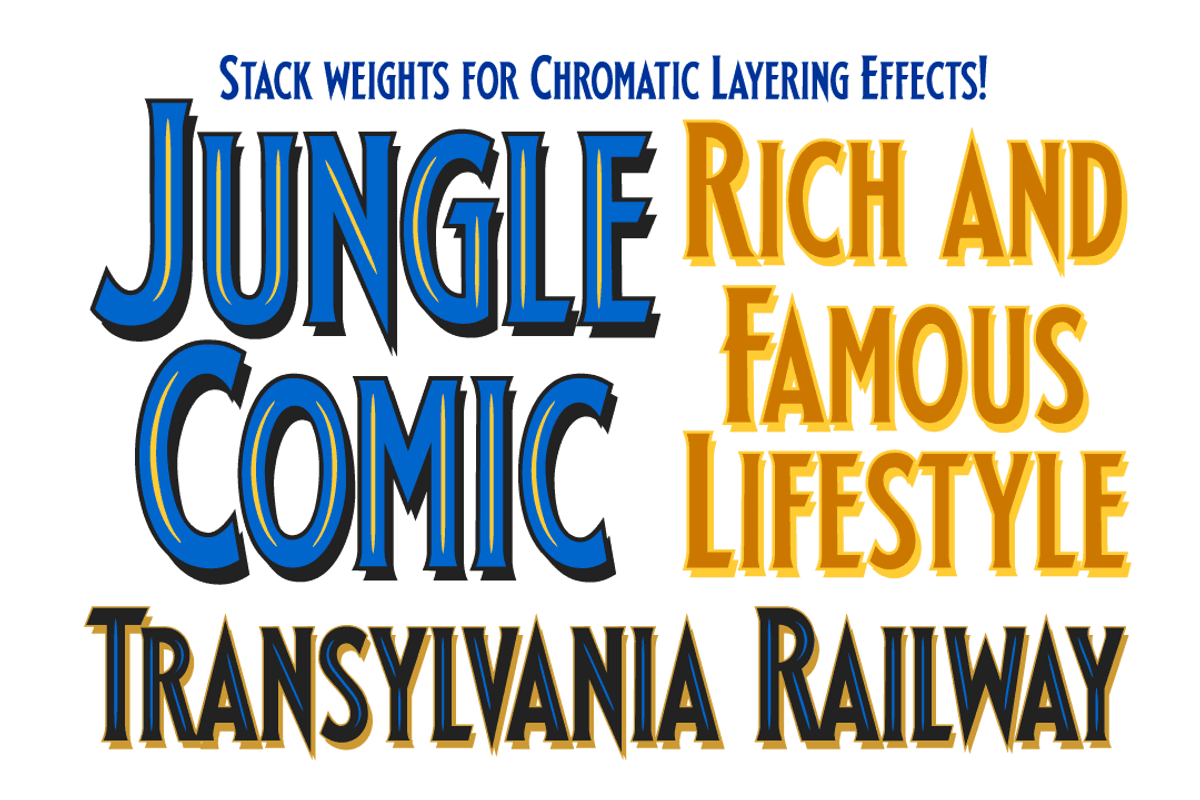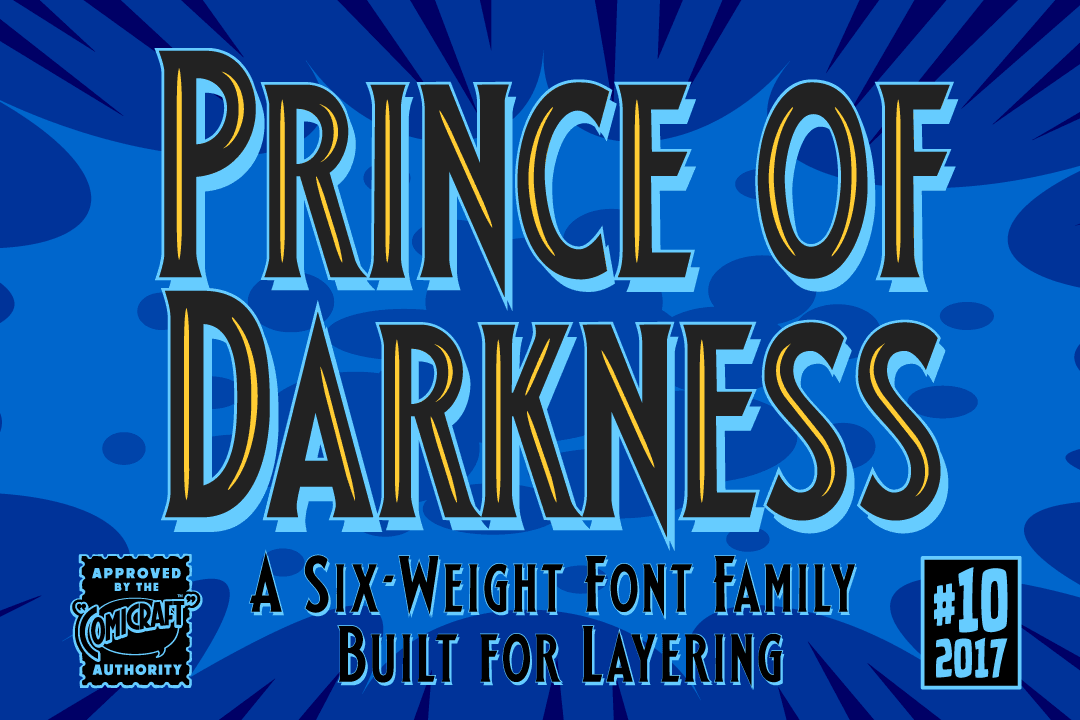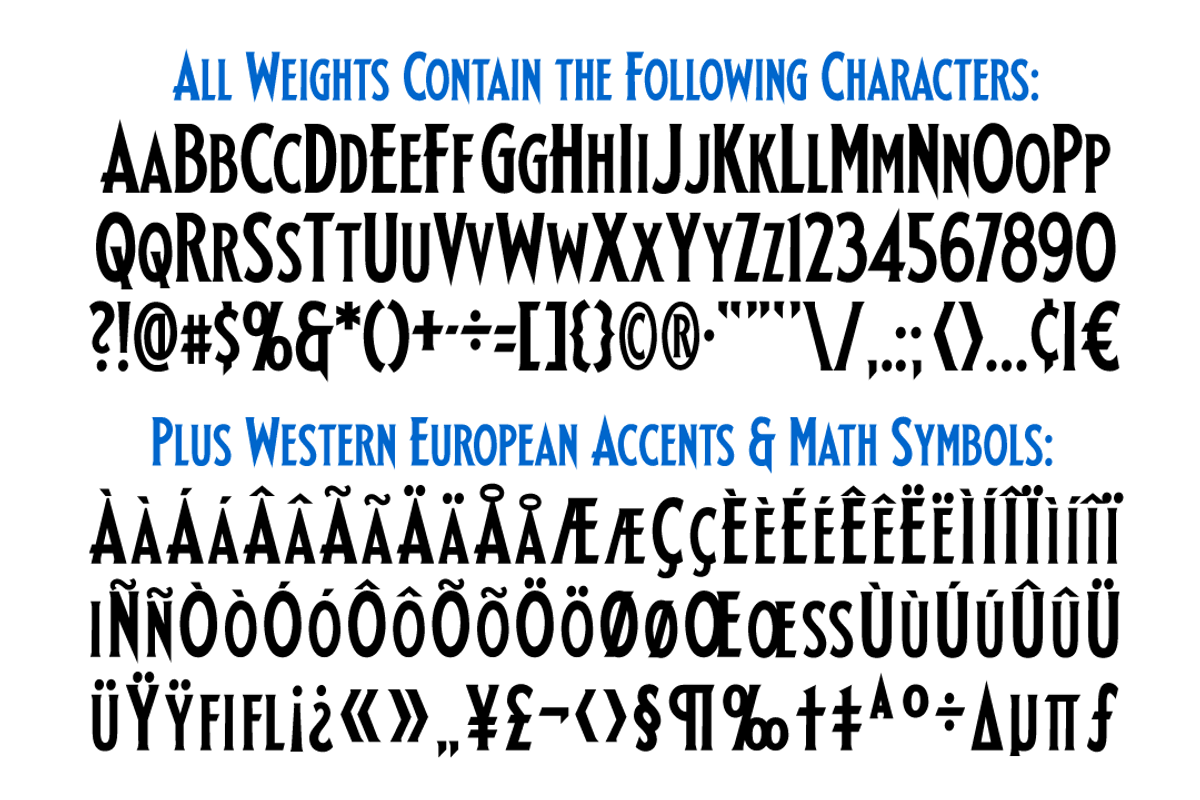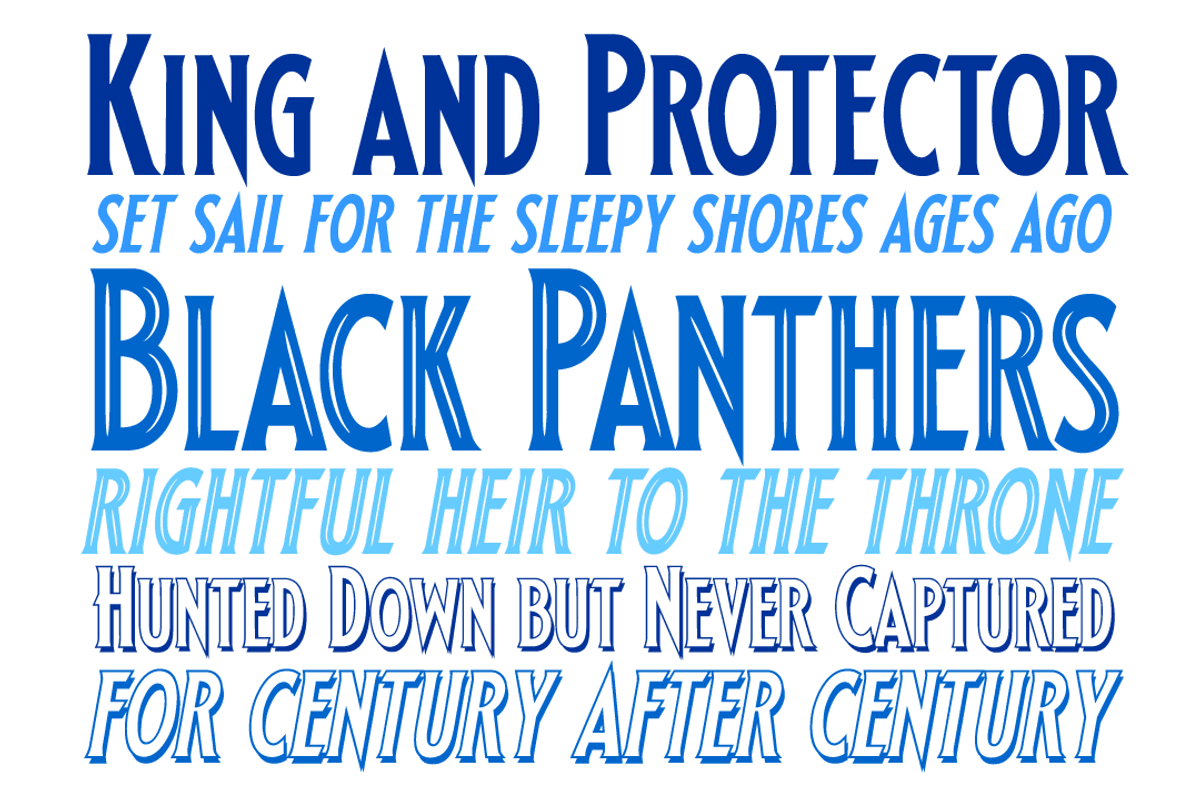
Prince of Darkness comic logo font
The 52 characters assembled by this Gothic font, Prince of Darkness, were once interred in coffins onboard the Russian cargo ship Demeter, when it set sail for the sleepy shores of Whitby, Northern England ages ago. Hunted down by Vampire Hunters for century after century, this noble Transylvanian set has hidden for years in England and Eastern Europe. Now, Prince of Darkness is available as a font with more Layers than Dracula has Lairs.